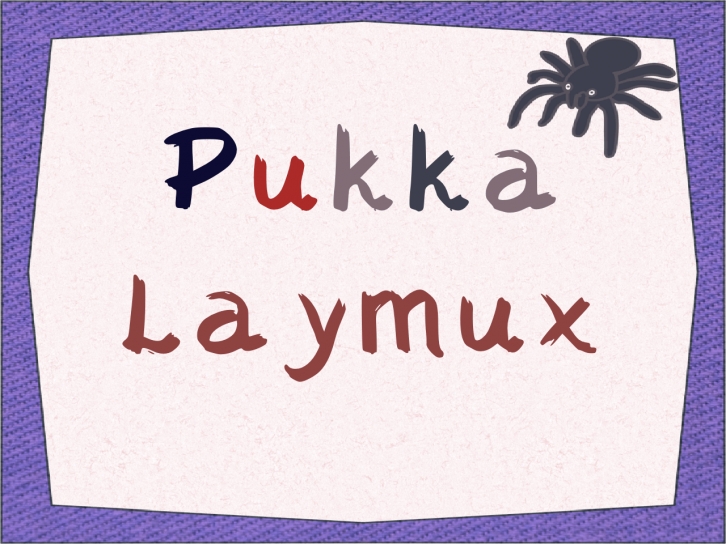
Pukka Laymux is a fun and whimsical handwritten font. Its natural and unique style makes it incredibly fitting to a large pool of designs. The only limit is your imagination!